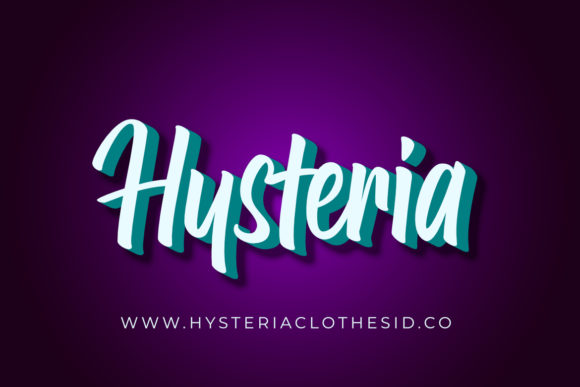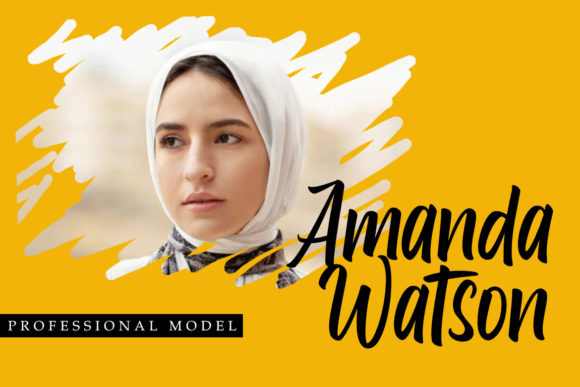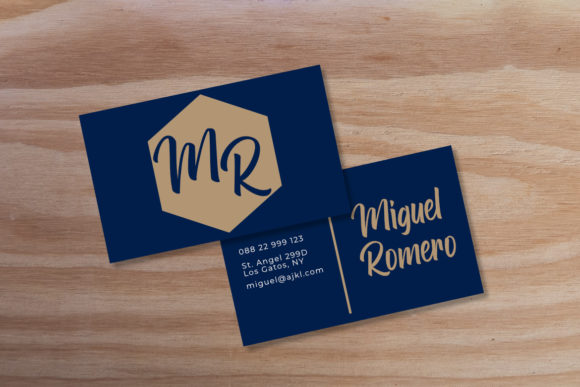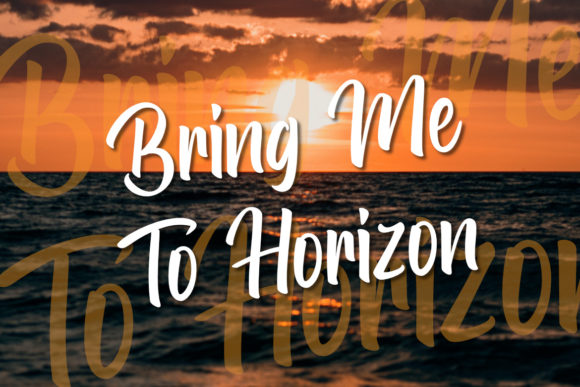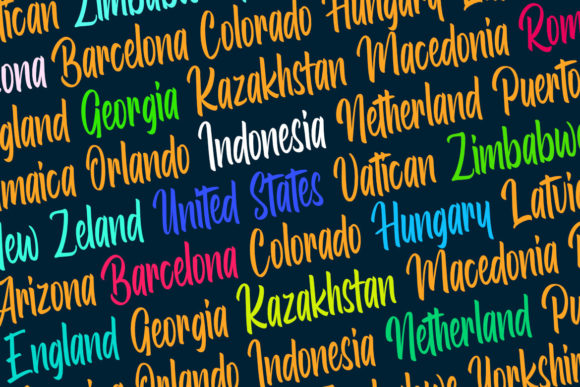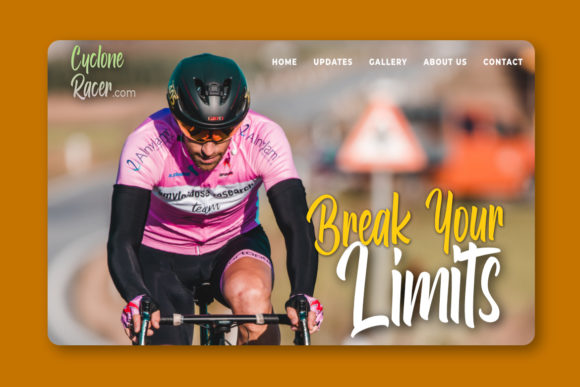
The Magic of Berkah Ramadhan Font: A Designer’s Delight
I’ll never forget the time I was working on a project for a client’s Ramadan-themed branding. I had spent hours scouring the internet for the perfect font, but nothing seemed quite right. That was until I stumbled upon Berkah Ramadhan Font. It was like a breath of fresh air – a handwritten font with an authentic feel that instantly captured the essence of the holy month. In this article, I’ll share my experience with Berkah Ramadhan Font, its features, and how to make the most of it in your designs.
- ✨ Unique and authentic handwritten feel
- ✅ Perfect for logos, branding, product packaging, and more
- 💫 Highly versatile and adaptable to different design styles
- 🎨 Beautifully crafted to evoke a sense of warmth and hospitality
While Berkah Ramadhan Font is an excellent choice for many design projects, there are a few things to keep in mind:
- 🤔 Limited availability of certain characters or glyphs
- ⚠️ May not be suitable for very small font sizes or body text
The Story Behind Berkah Ramadhan Font
Berkah Ramadhan Font was designed with the intention of capturing the essence of the holy month of Ramadan. The designer aimed to create a font that would evoke a sense of warmth, hospitality, and community. With its unique and authentic handwritten feel, Berkah Ramadhan Font has become a popular choice for designers and crafters around the world.
| Font Name | Berkah Ramadhan Font |
| Author | Madatype Studio |
Q: What is Berkah Ramadhan Font?
Berkah Ramadhan Font is a handwritten font with an authentic feel, perfect for logos, branding, product packaging, and more.
Q: Is Berkah Ramadhan Font suitable for body text?
While Berkah Ramadhan Font is beautiful and elegant, it may not be the best choice for body text, especially at small font sizes.